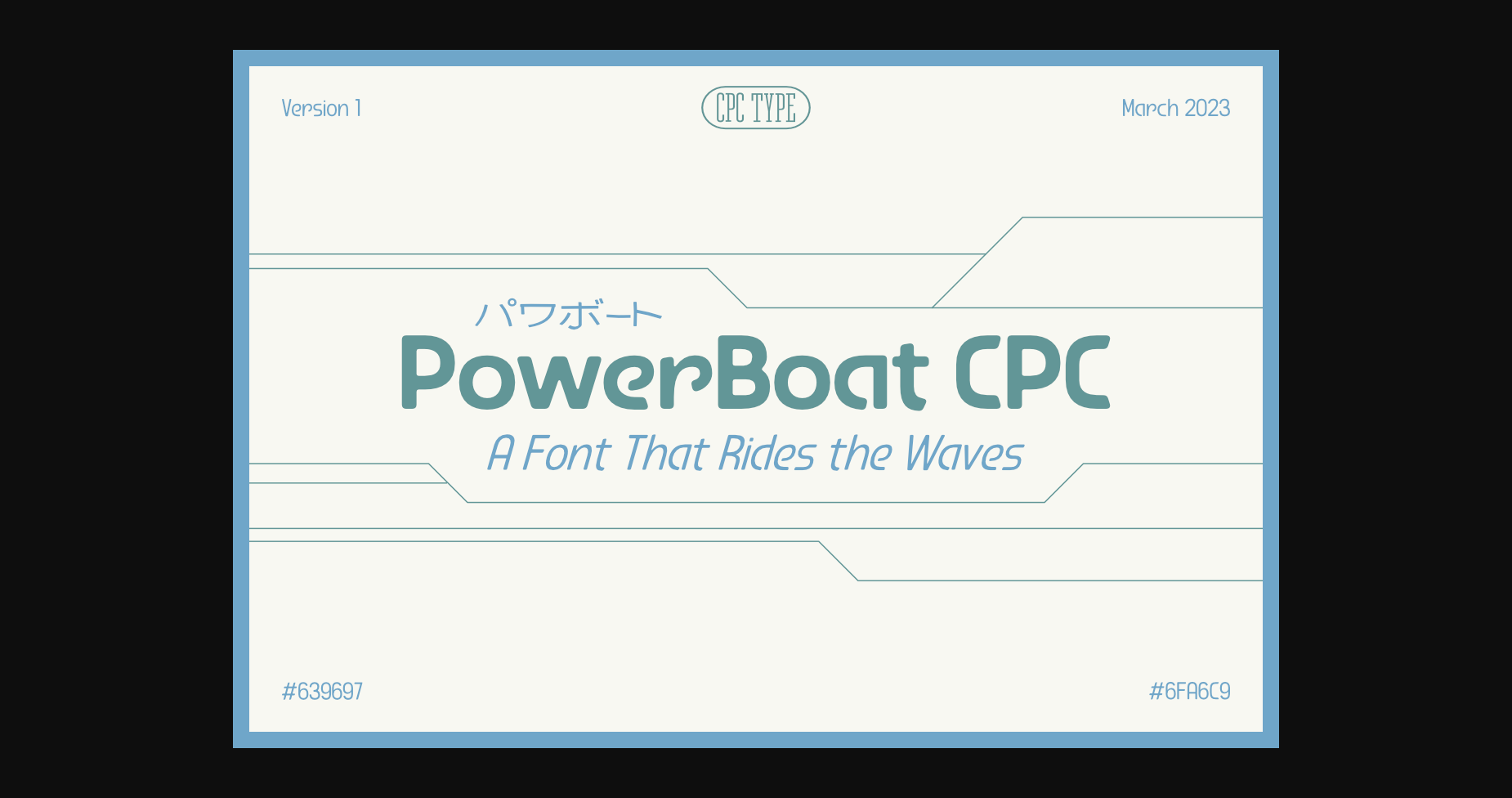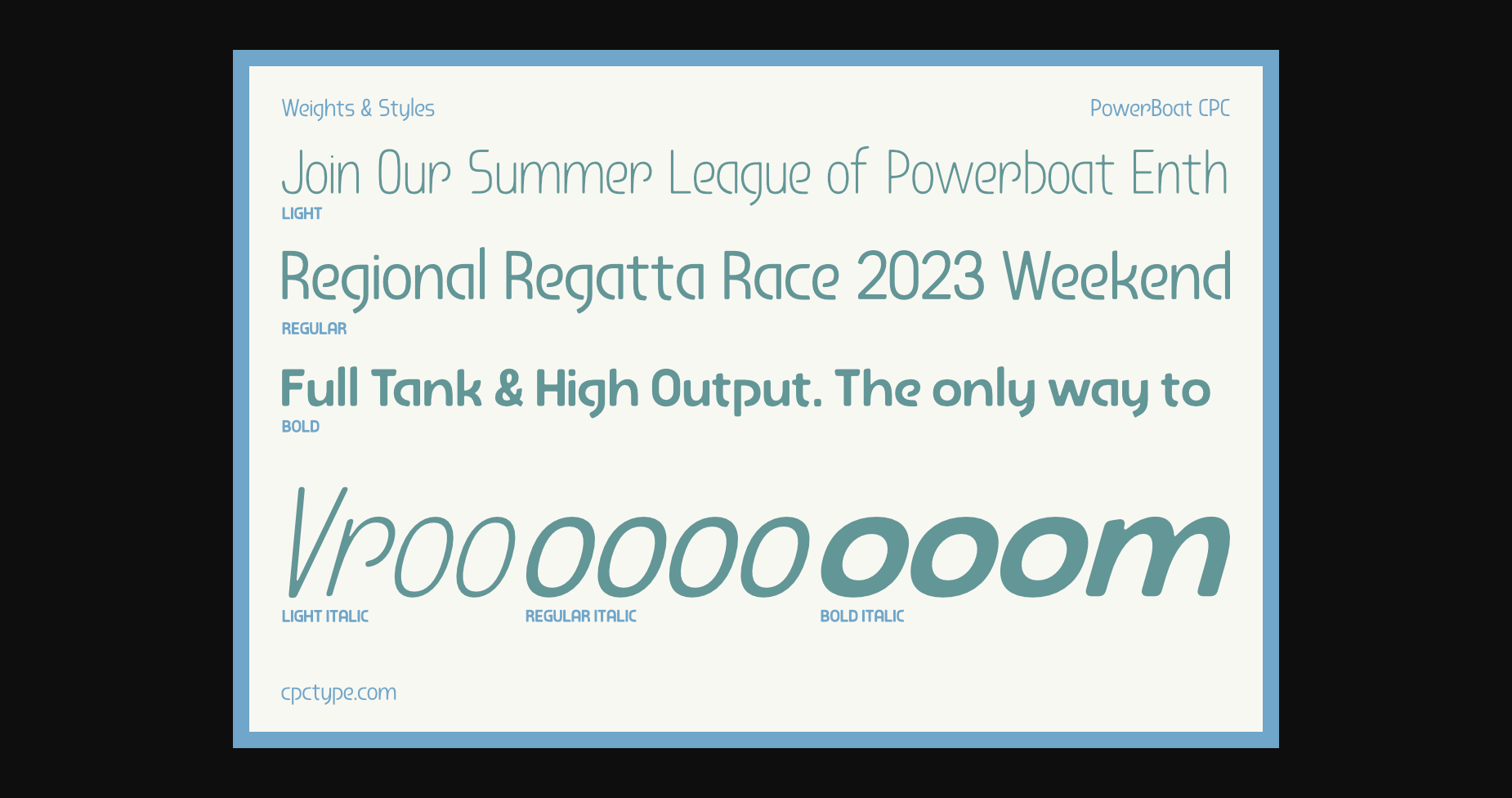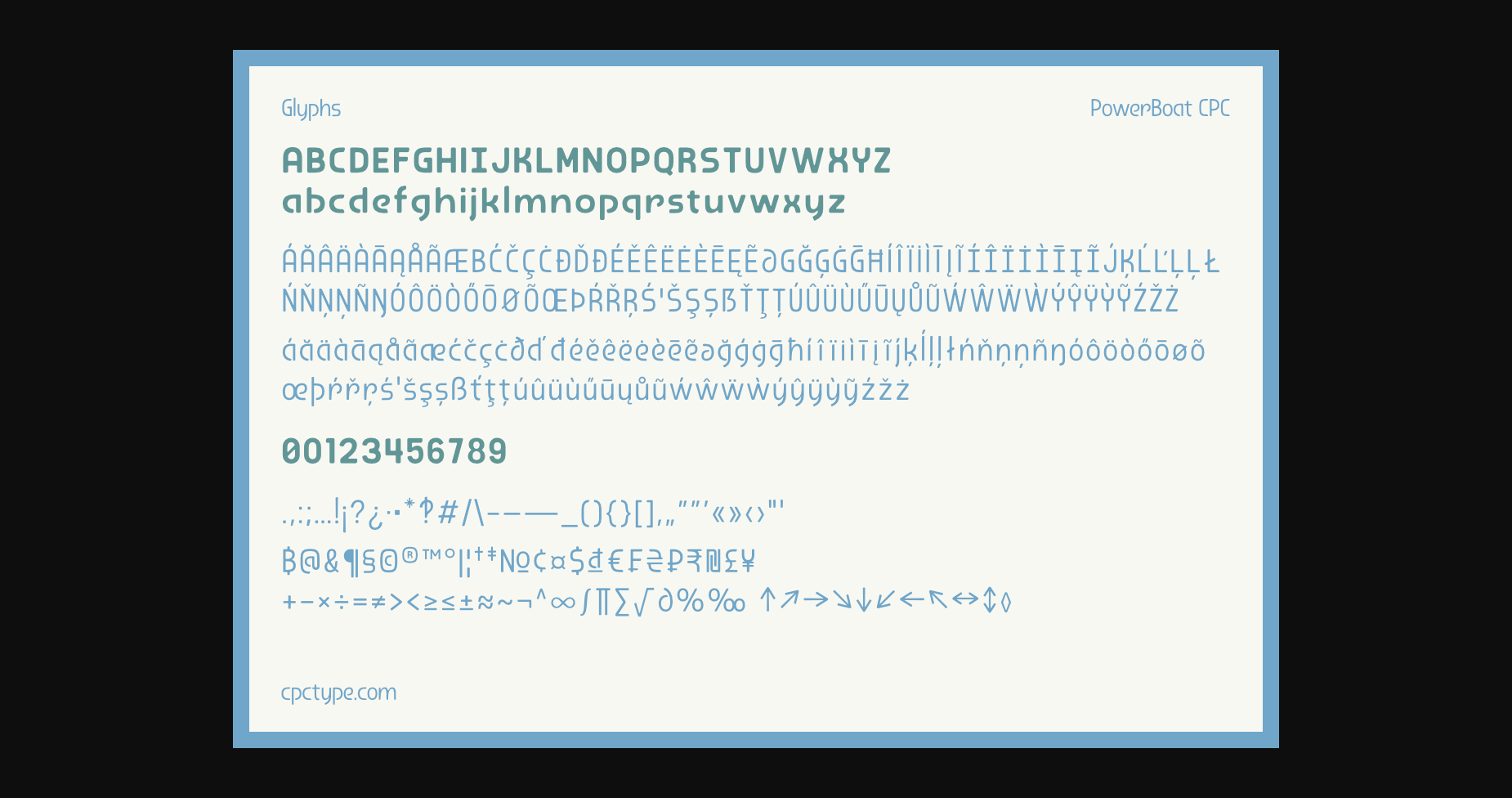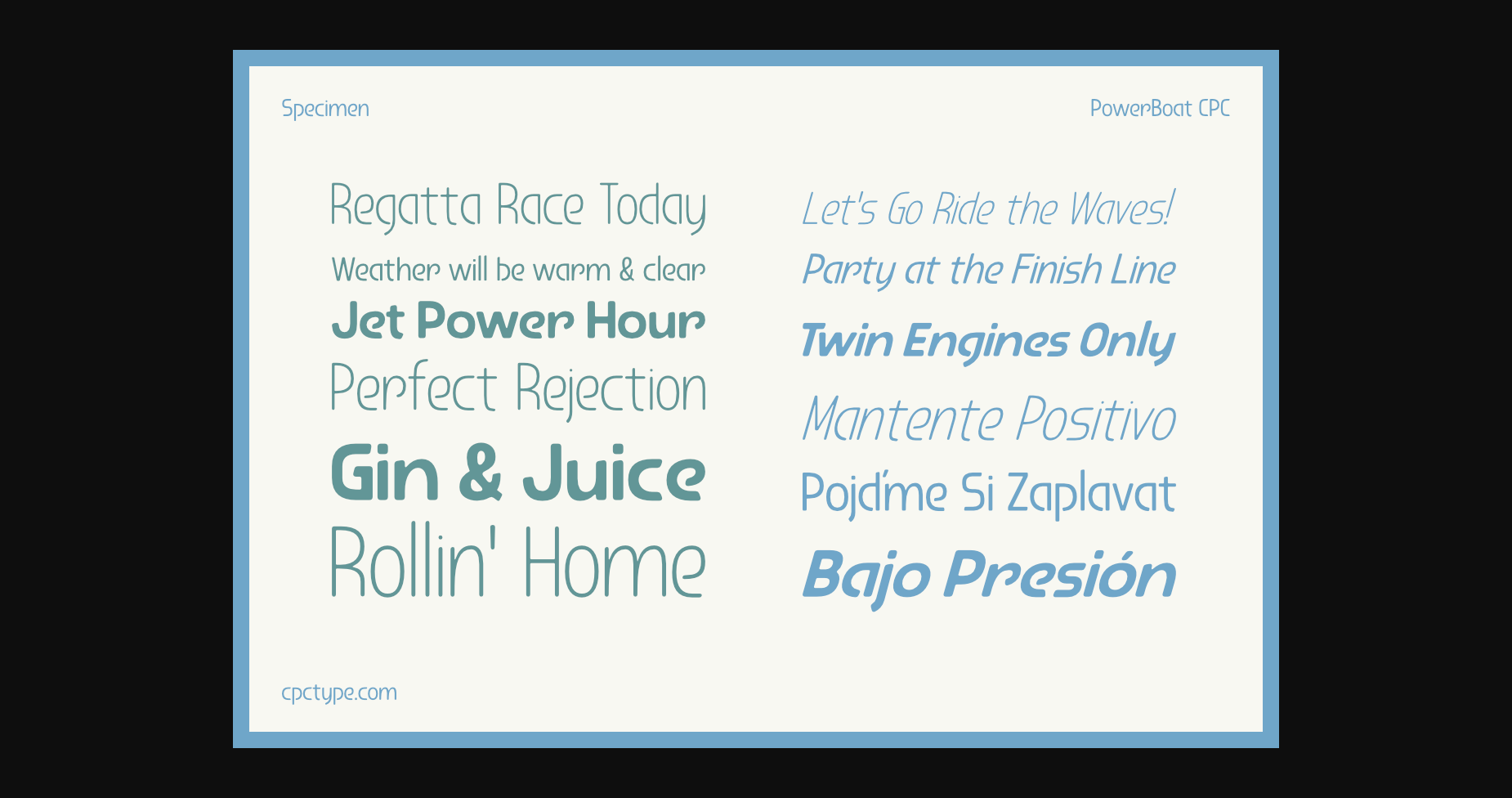
PowerBoat CPC Font
About PowerBoat CPC Font
Inspired by the style of high-performance boats used for speed and style. Powerboat CPC takes on a retrofuturism style but with some whimsical characteristics. If your design needs the feel like it could be going 48 knots into the future then Powerboat CPC will get you cooking.